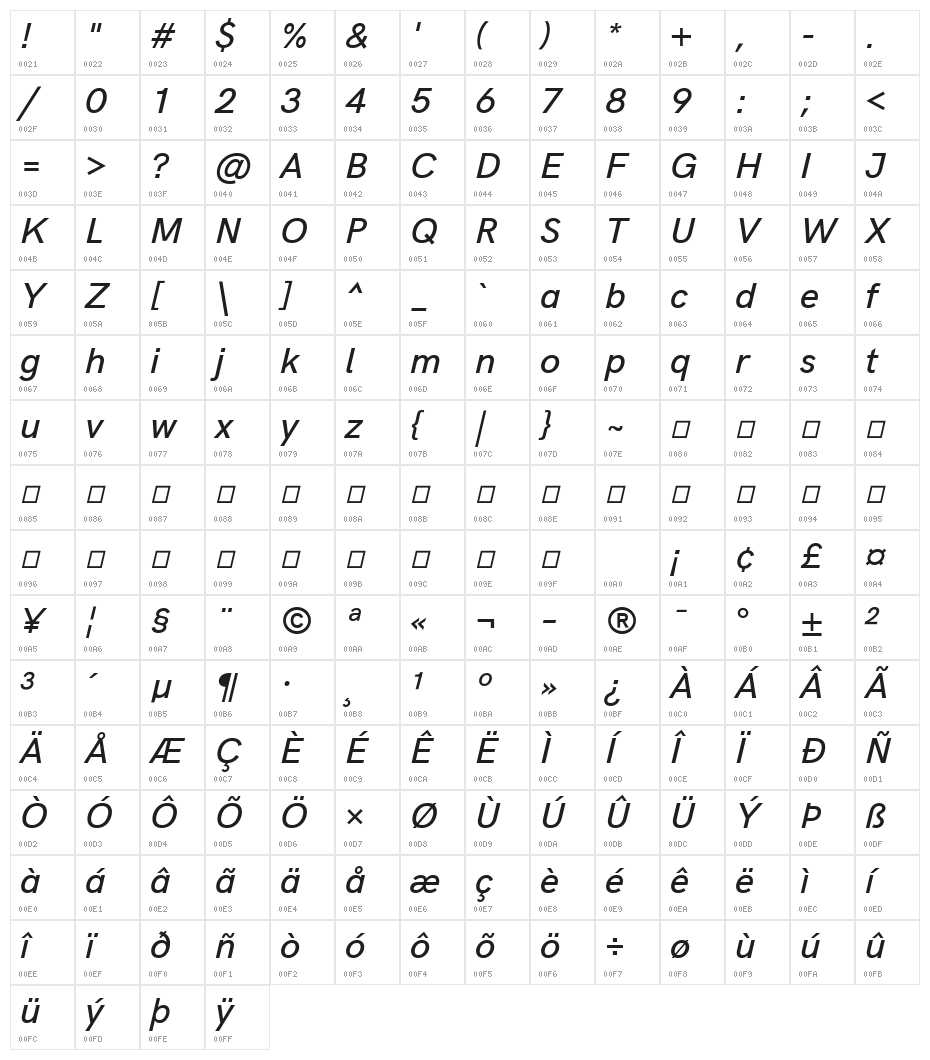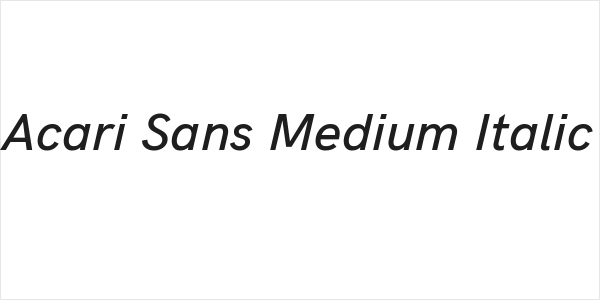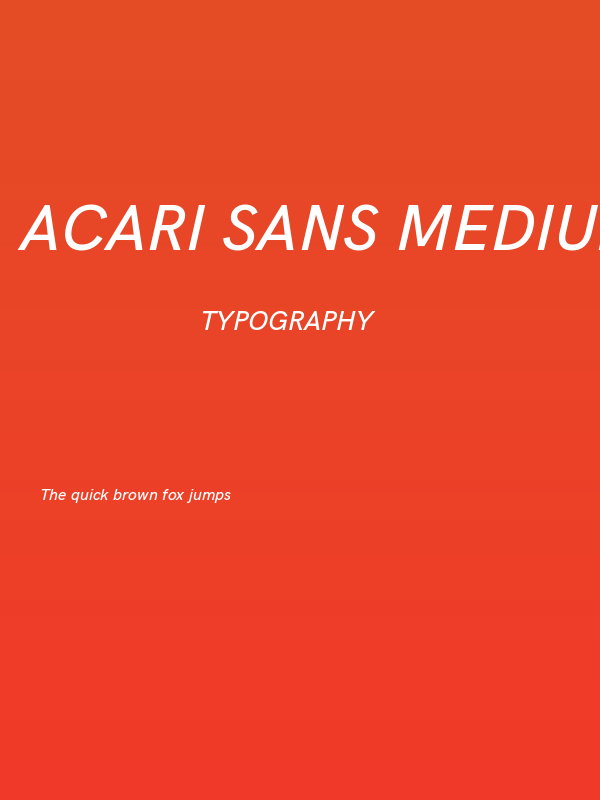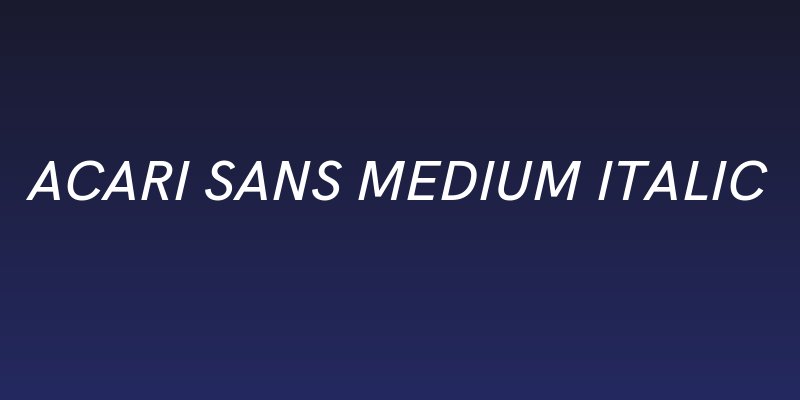
Acari Sans Medium Italic Font
Acari Sans Medium Italic Description
This typeface exhibits a clean and modern aesthetic with a slight slant, giving it an italicized appearance. The characters are well-proportioned, with smooth curves and a consistent stroke width that enhances readability. The uppercase letters are bold and assertive, while the lowercase letters maintain a friendly and approachable feel. The numerals are clear and distinct, making them suitable for various applications. Special characters are neatly designed, ensuring versatility in usage. Overall, this font balances professionalism with a touch of elegance, making it suitable for both digital and print media.
Proposed ProjectsIdeal for branding, advertising, website headers, and editorial design.